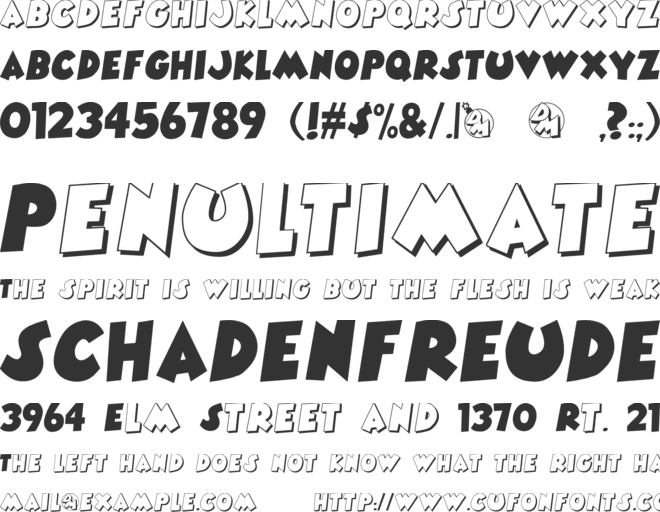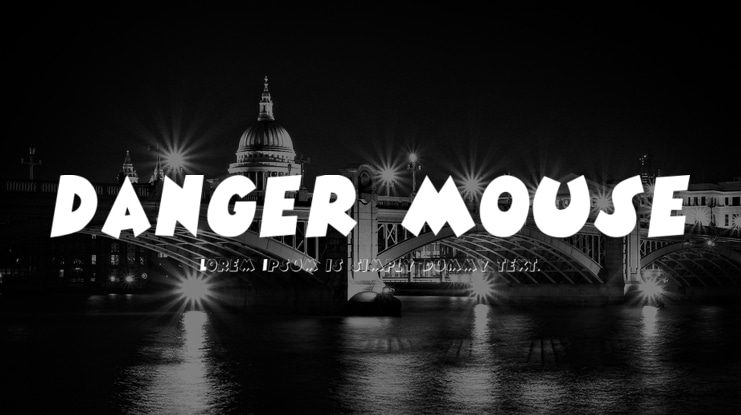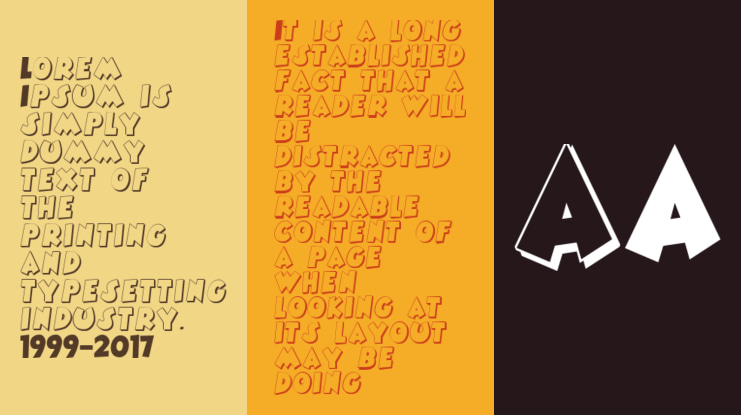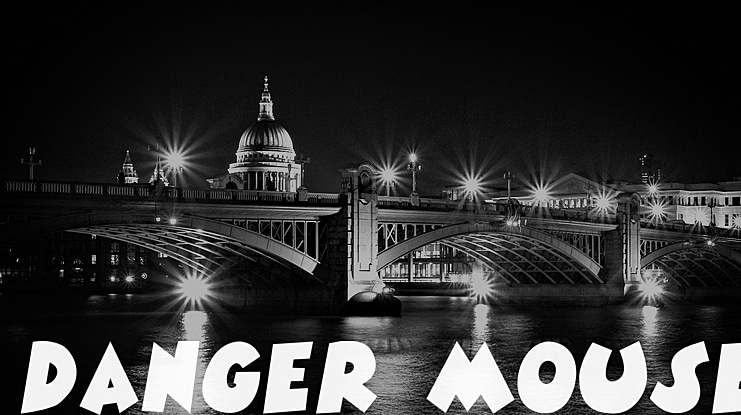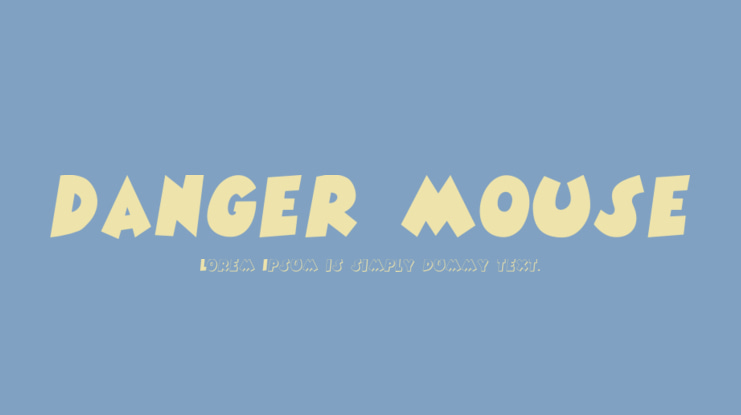
DANGER MOUSE Font
I have wanted to create a comic typeface based on one of my favorite TV shows from my childhood. So this is for all you would be Rodent Secret Agents out there !
He's the greatest He's fantastic Wherever there's danger he'll be there He's the ace He's amazing He's the strongest he's the quickest he's the best HE'S DANGER MOUSE + PENFOLD (of course)